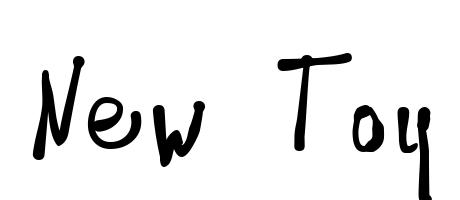
New Toy
By Artsy Fartsy McFontsy
New Toy is a casual handwritten script, conveying a playful and slightly informal tone. The letters are slightly uneven in size and spacing, enhancing the hand-drawn feel. It's reminiscent of a child's writing or a quick note scribbled down, lacking the uniformity of a typed font. The overall style is relaxed and friendly.